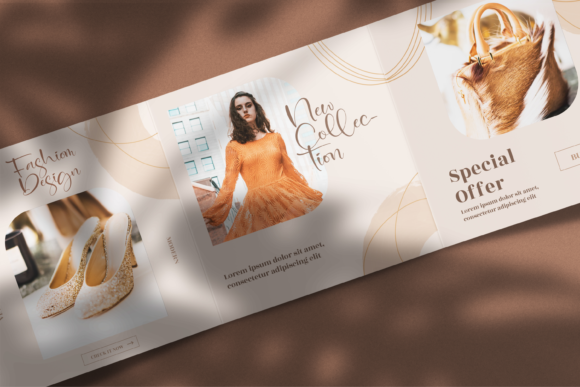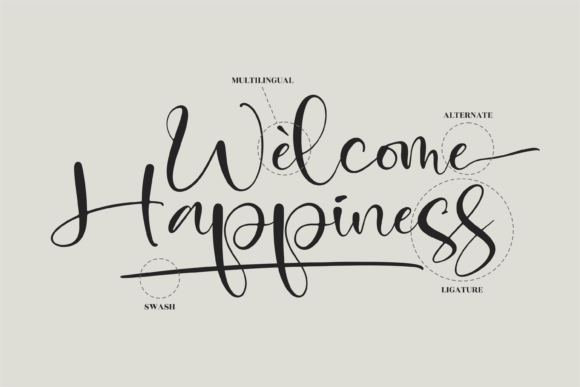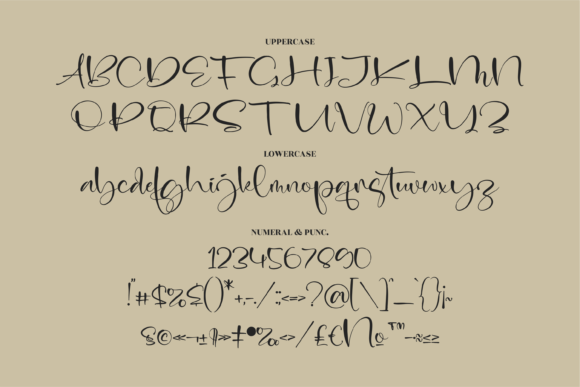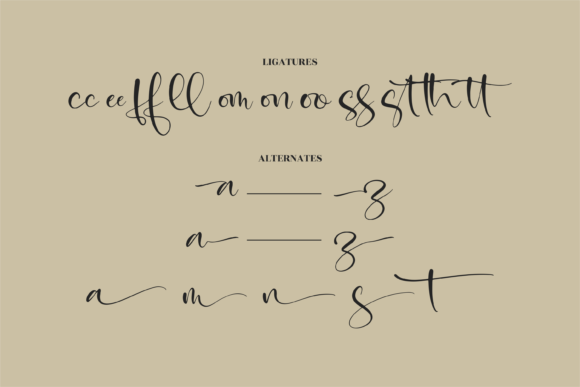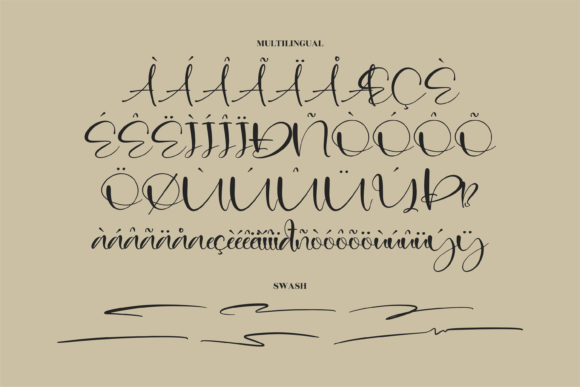
Monday Night Font
About Monday Night Font
Monday Night is a romantic and sweet calligraphy typeface with characters that dance along the baseline. It will add a luxury spark to any design project that you wish to create! Monday Night is PUA encoded which means you can access all glyphs and swashes with ease!